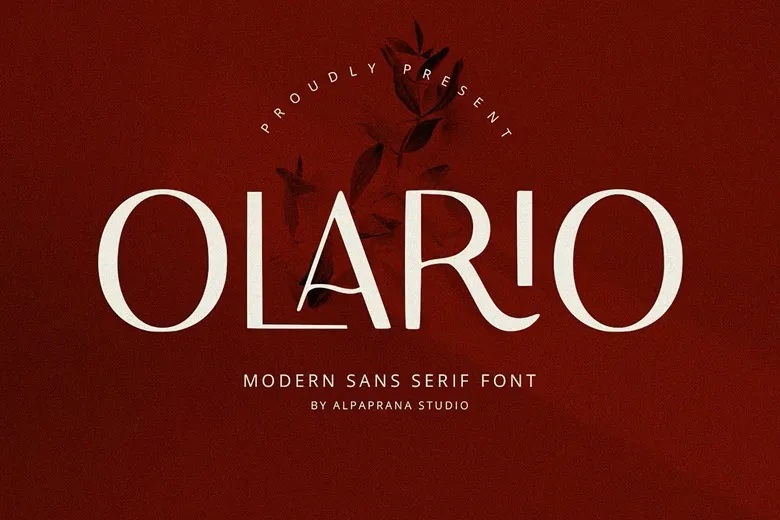
Olario Font
Olario is a contemporary sans serif typeface with a clean and beautiful aesthetic. It brings a modern look to a variety of design crafts. Use it for logos, branding, lettering, and logotypes. It also blends well with posters, clothing, packaging, magazines, t-shirts, shopping bags, photography and shopping events. This font offers style, clarity and flexibility across multiple applications.
Olario Sans Serif Font